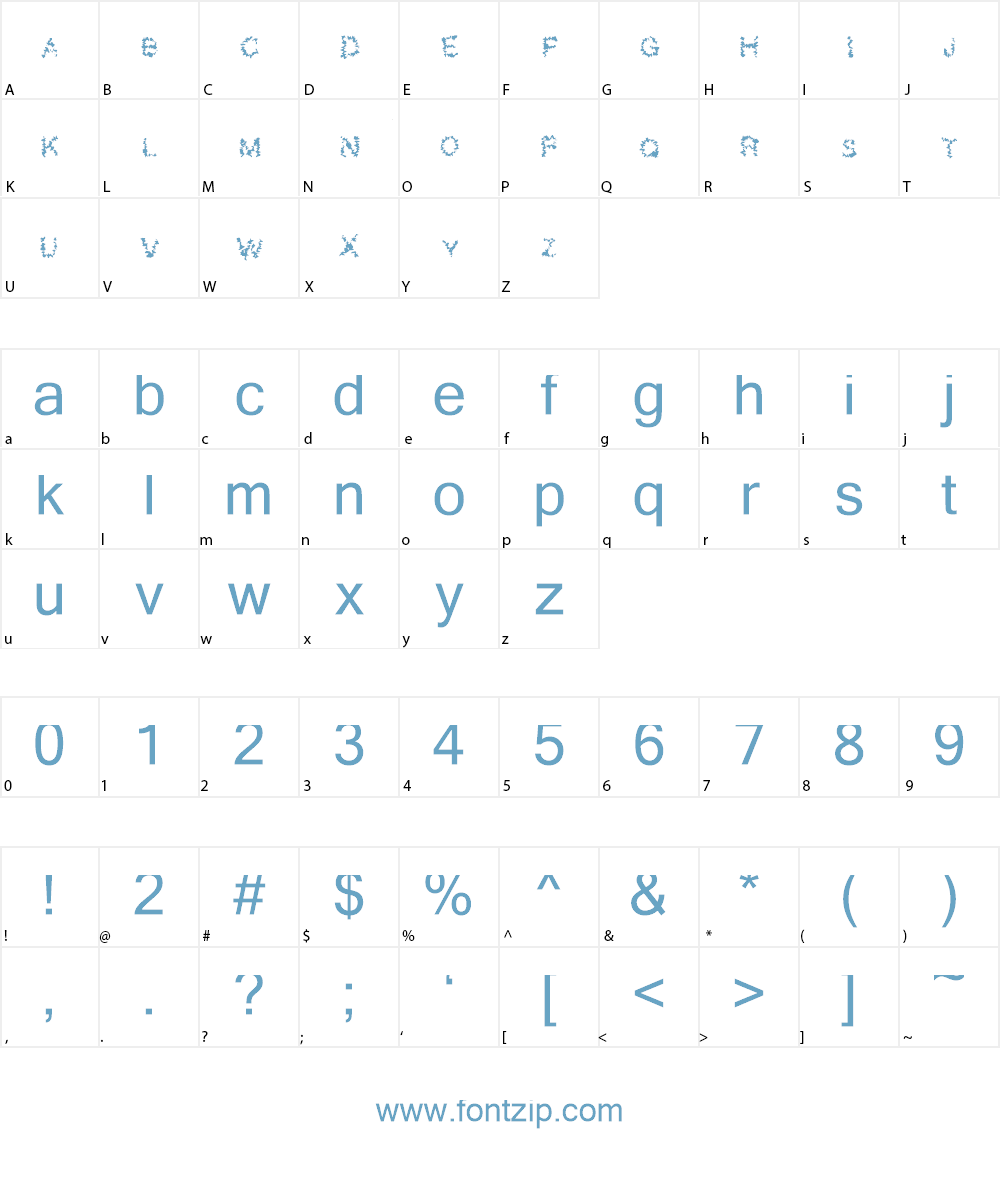
A smashing (sorry I had too) face based on broken glass, mind out now! This is only a Demo and only showcases uppercase. If you would like the full version please send £15 to  via Paypal.